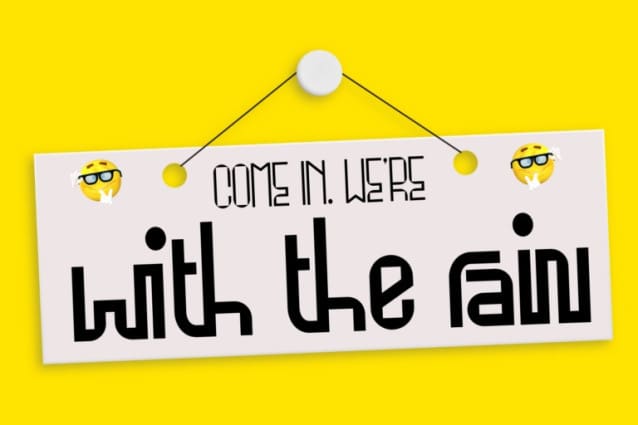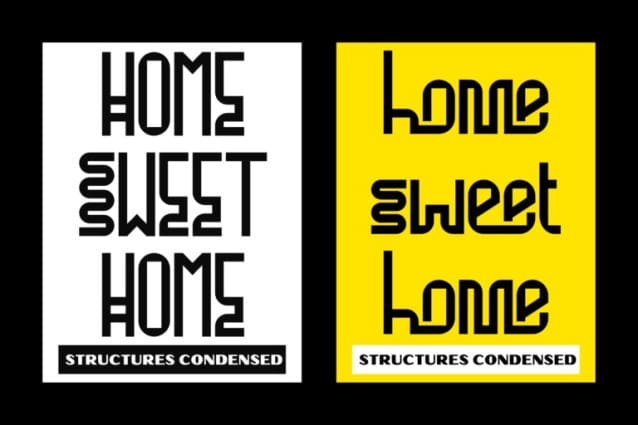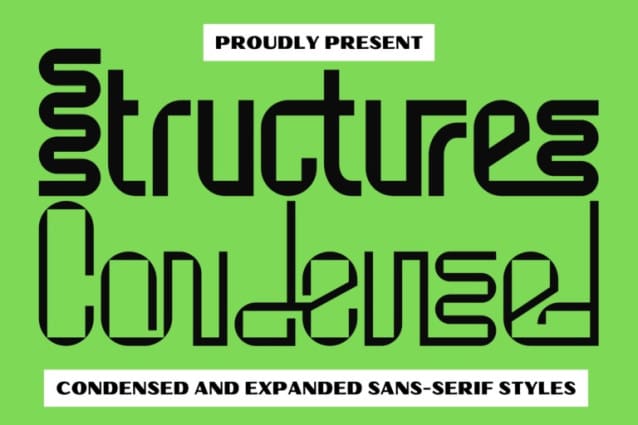
Structures Condensed Font
Structures Condensed Font is a Condensed Display font, simpel and powerful font. This sans serif font offers a trendy, modern and minimalist design with clean lines and three weight (light, regular and bold). Really playful typeface to covering your Project, like Lettering, Website Interface, Magazine, Branding, Poster, wedding invitations, Quotes Lettering, Logos, and more your project design.
Structures Condensed was built with OpenType features and includes 100 ligatures, alternate, numbers, punctuation, and it also supports other languages.